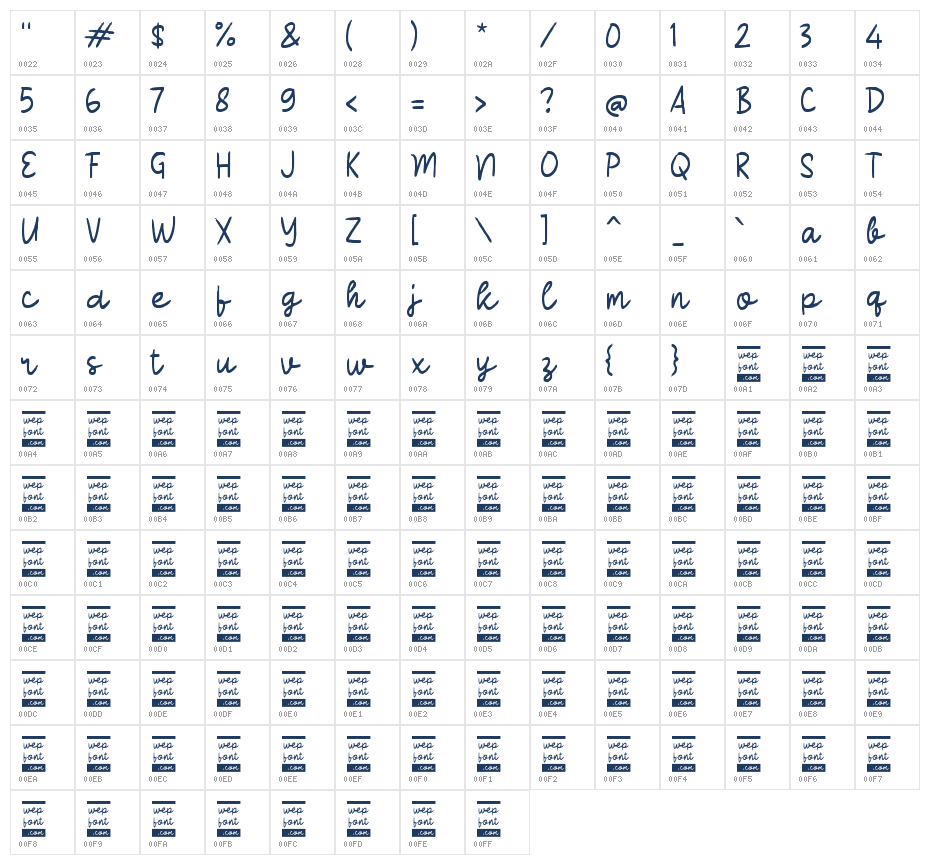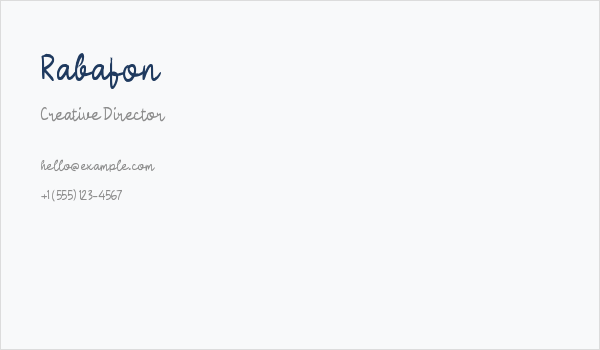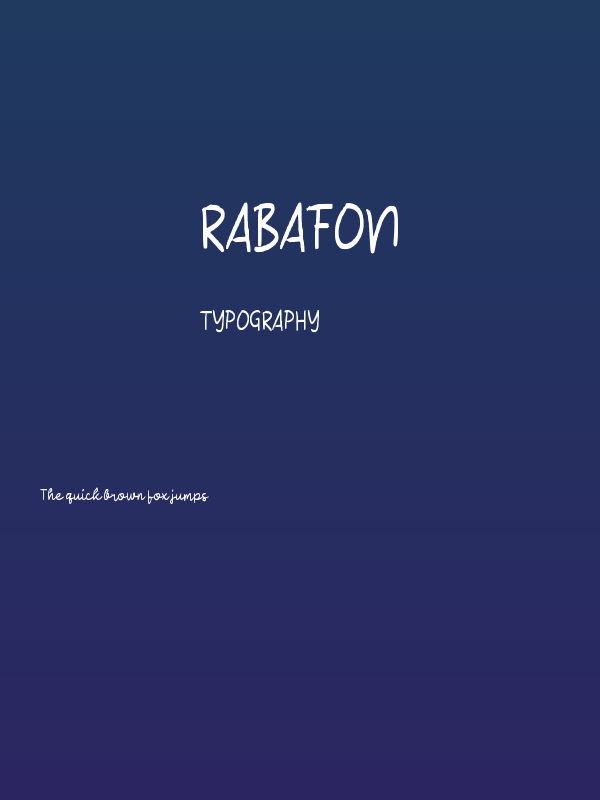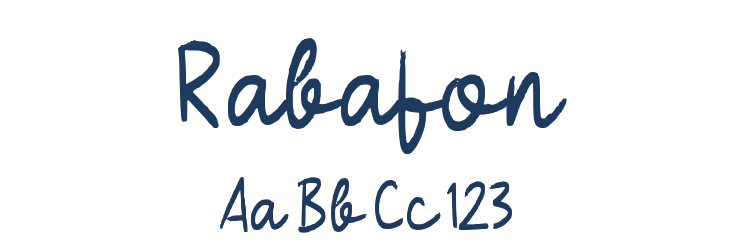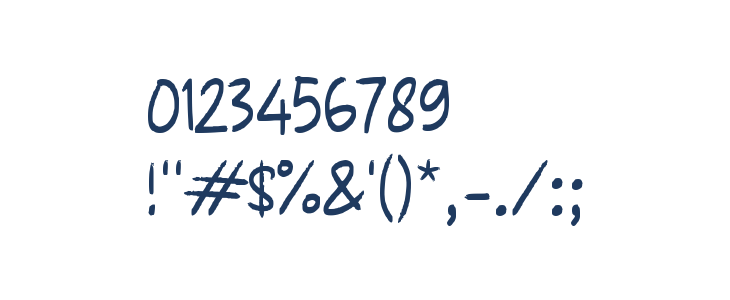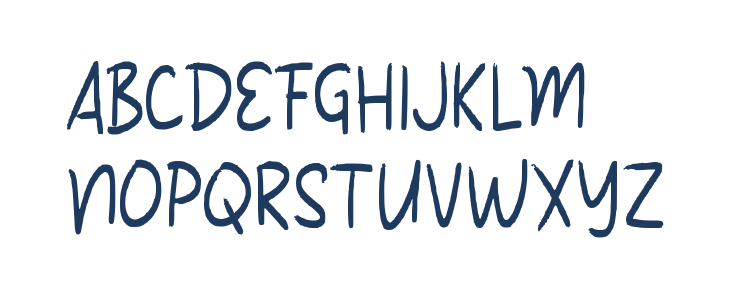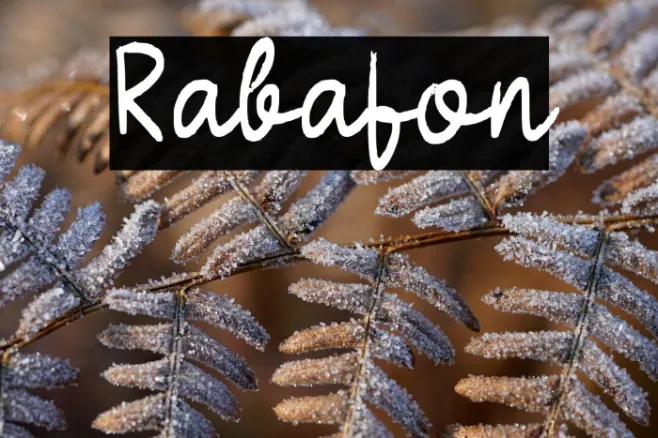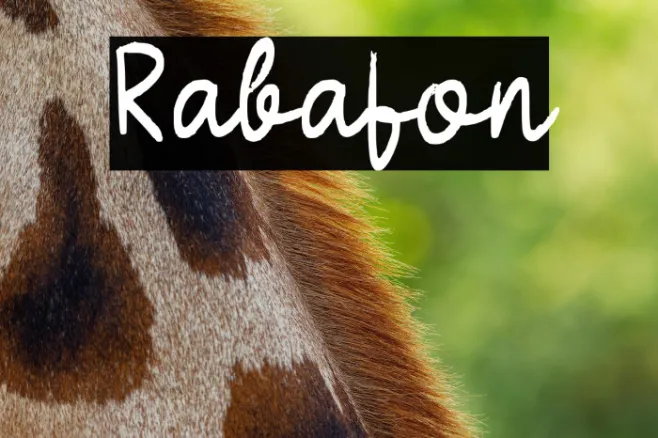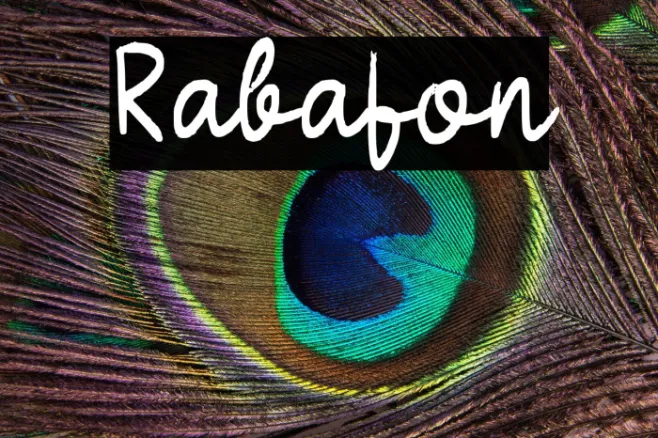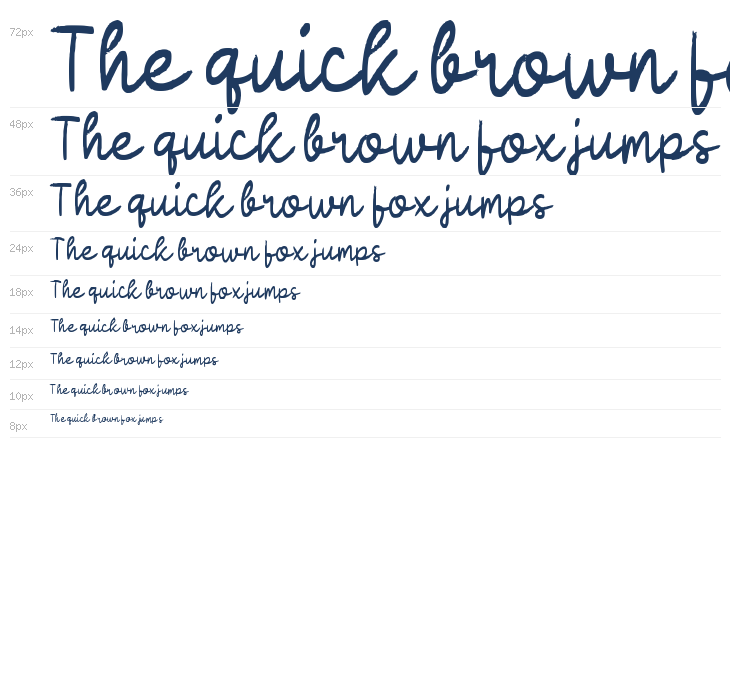
Rabafon Font
Rabafon Description
A casual, handwritten script font with a playful and informal style, featuring slightly irregular strokes and a smooth flow.
| Use Case | Invitations, Greeting Cards, Personal Projects, Logos |